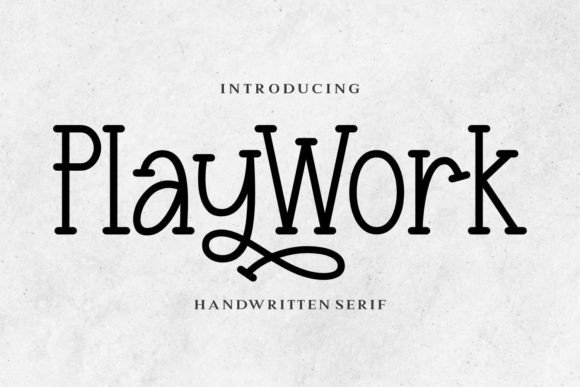
Introducing Playwork Font, the ultimate choice for those seeking the best font for a cute logo! Created by the talented Wakhamm from 7NTypes, this font is designed to captivate and inspire. With its fun and whimsical serif style, Playwork will add a unique personality to any project.
What sets Playwork apart from other fonts is its special handwritten characters. These charming elements give the font a playful and delightful touch, making it perfect for creating adorable craft products, gift tags, quotes, tote bags, wall art, posters, and so much more. Let your imagination run wild and bring your creative ideas to life with the help of Playwork!
One of the standout features of this font is its PUA encoding. This means that all of the glyphs and swashes are easily accessible, allowing you to effortlessly enhance your designs with decorative elements. With Playwork, you have the freedom to experiment and create truly unique and eye-catching typography.
But Playwork is not just about aesthetics; it also offers practicality and versatility. Whether you're a seasoned designer or a beginner, this font is incredibly user-friendly. Its intuitive design ensures that you can effortlessly incorporate it into your projects, no matter your skill level.
Let the magic of Playwork Font elevate your designs and captivate your audience. Its captivating charm and emotional appeal will leave a lasting impression on anyone who sees it. Get ready to stand out from the crowd and make a statement with this extraordinary font.